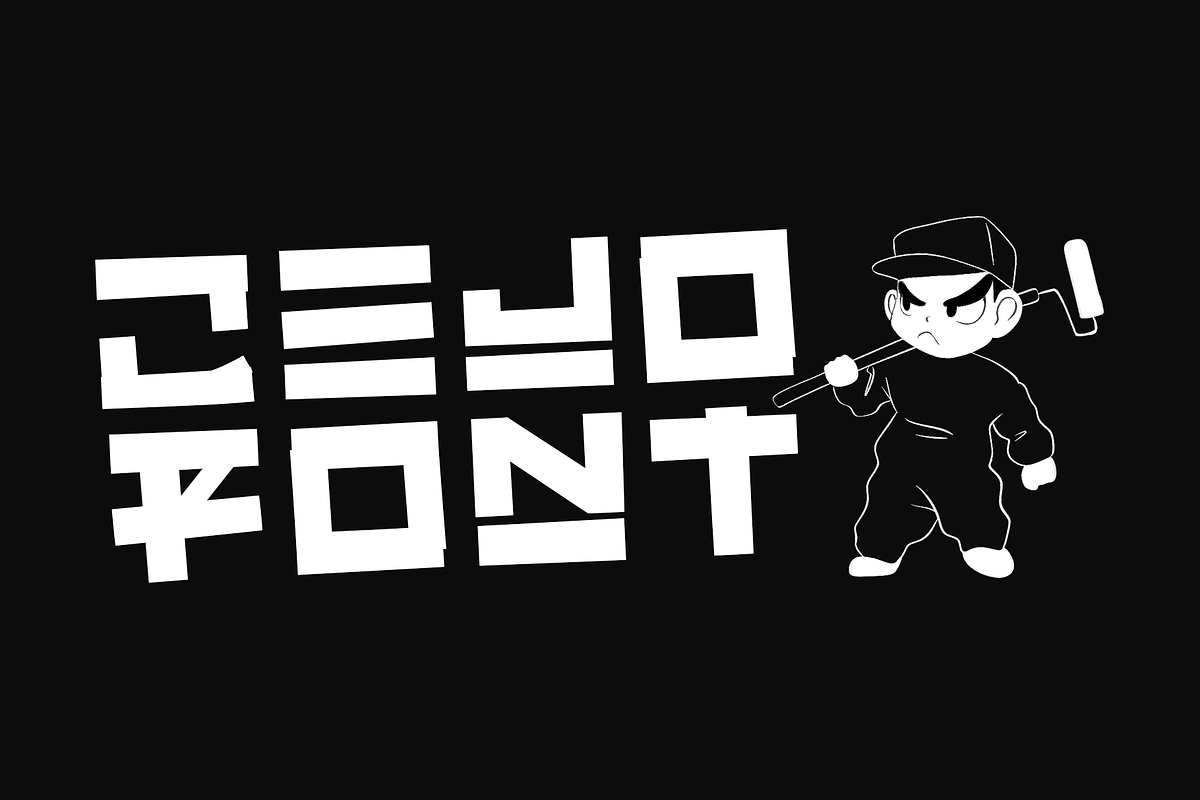
"CEJO" Graffiti Display Font Free Download
"CEJO" Graffiti Display Font Free Download is a vibrant and bold typeface inspired by street art and graffiti culture. With its dynamic, spray-paint-style lettering and energetic shapes, "CEJO" is perfect for urban designs, music posters, streetwear branding, and any project that needs a punch of rebellious, creative flair.
"CEJO" Graffiti Display Font Free Download brings the raw energy of street art to your designs, making it ideal for edgy graphics, event promotions, and contemporary branding. Whether you're designing for an underground music scene or creating street-style apparel, this font makes a bold statement. Download it today and add some graffiti-inspired attitude to your next project with "CEJO"!